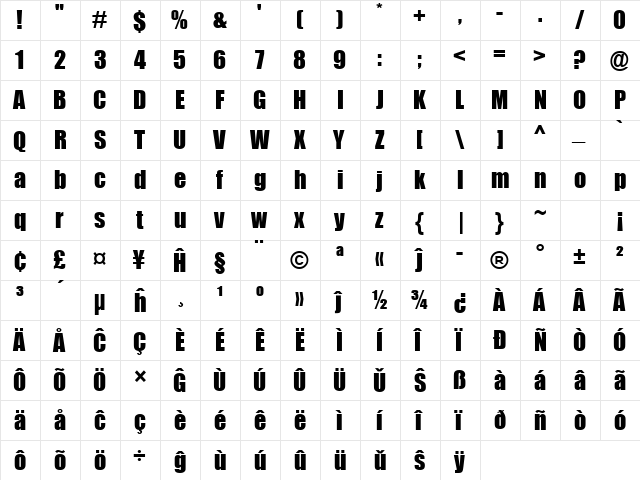
Impact Eo Regular
Design Context for Impact Eo Typeface
Impact Eo has the bold swagger of sports branding: strong, assertive letterforms designed to dominate headlines and jerseys alike.
A natural choice for gym brands, fantasy sports, jersey lettering, and action-driven headlines.
Pro Tip: Use Impact Eo in all-caps headlines where its athletic energy can fully express itself. Pair with a solid, simple sans for supporting text.